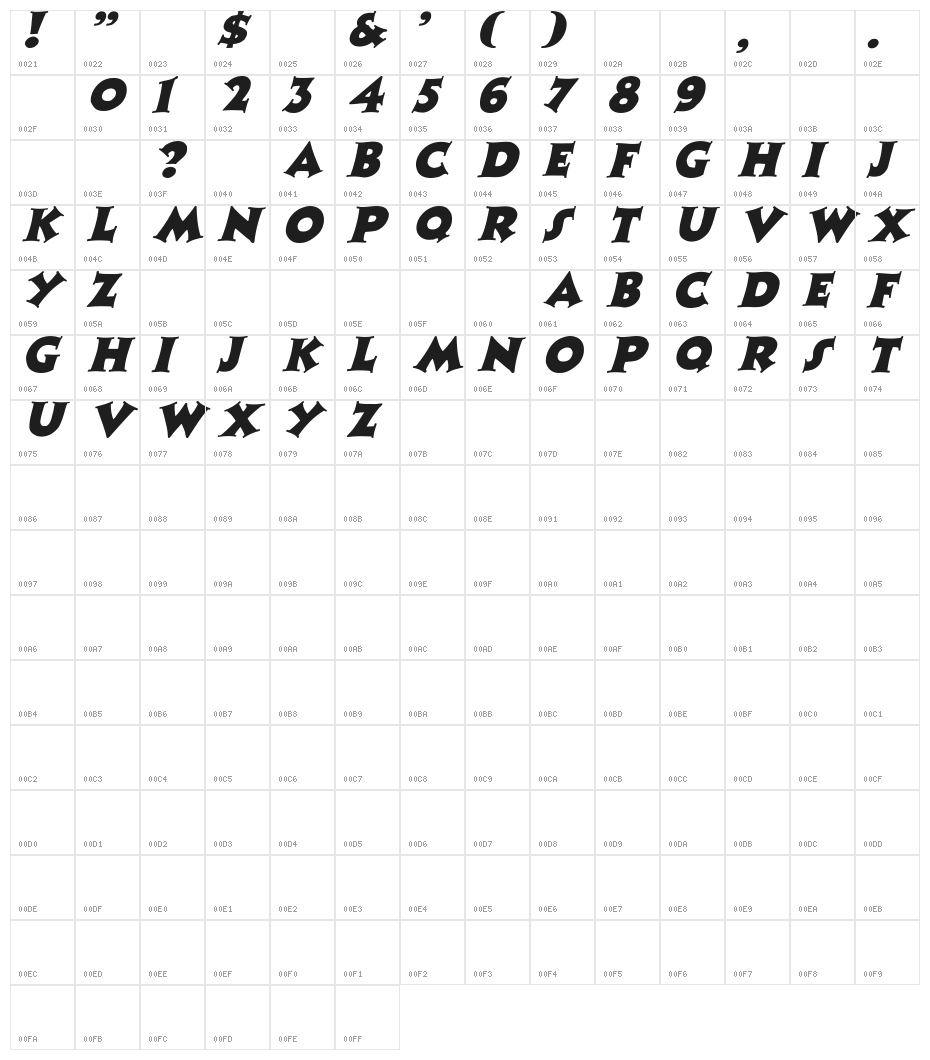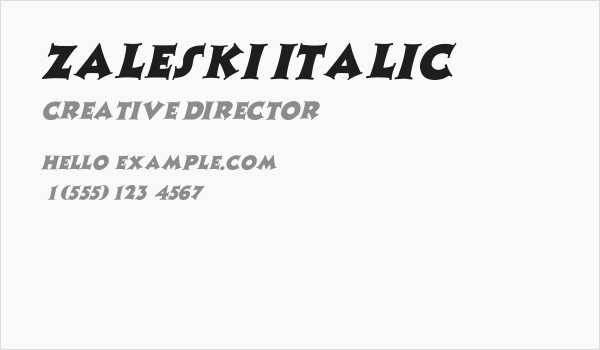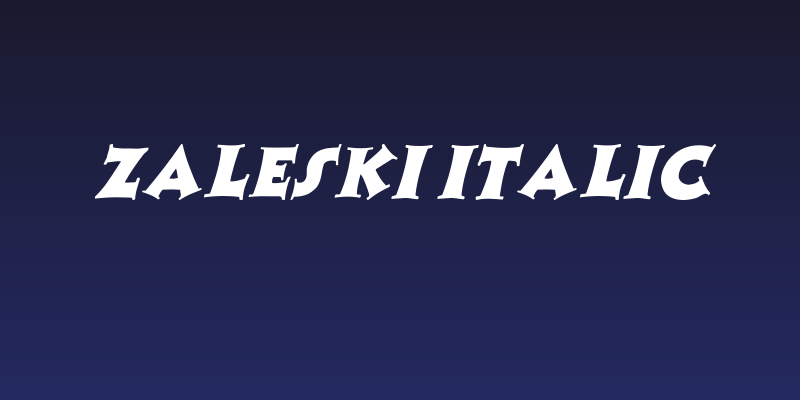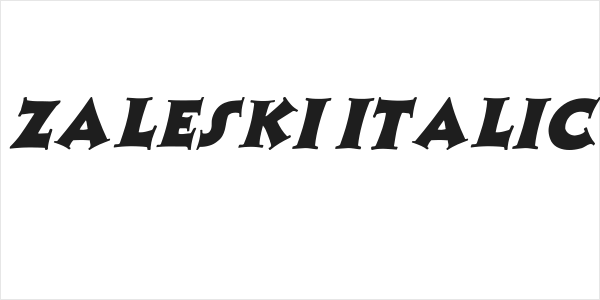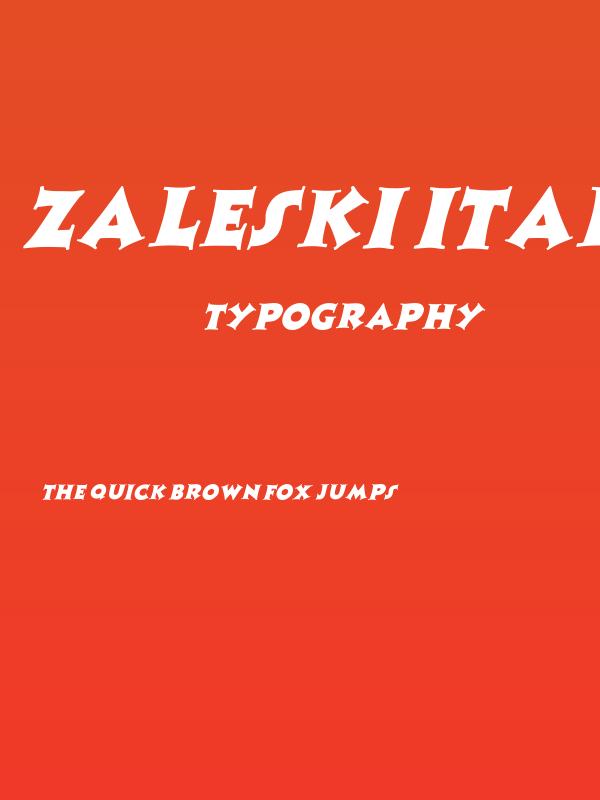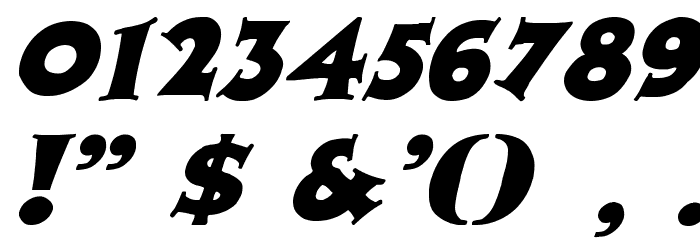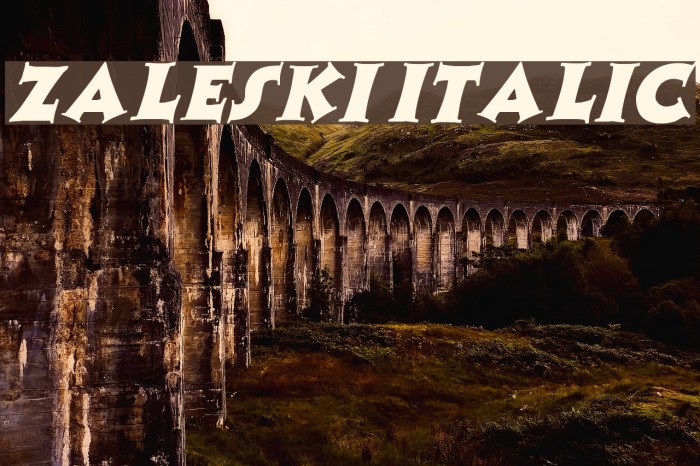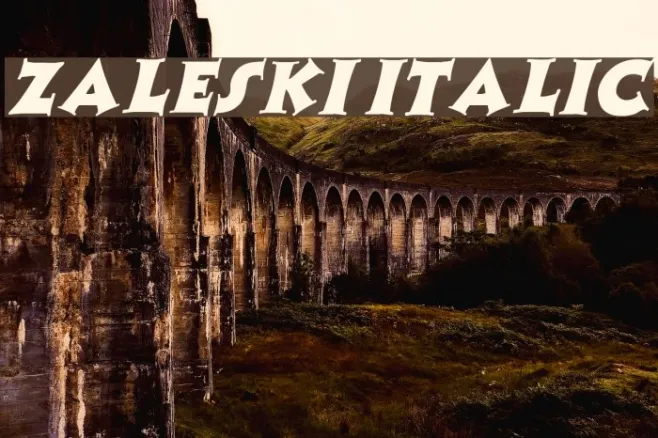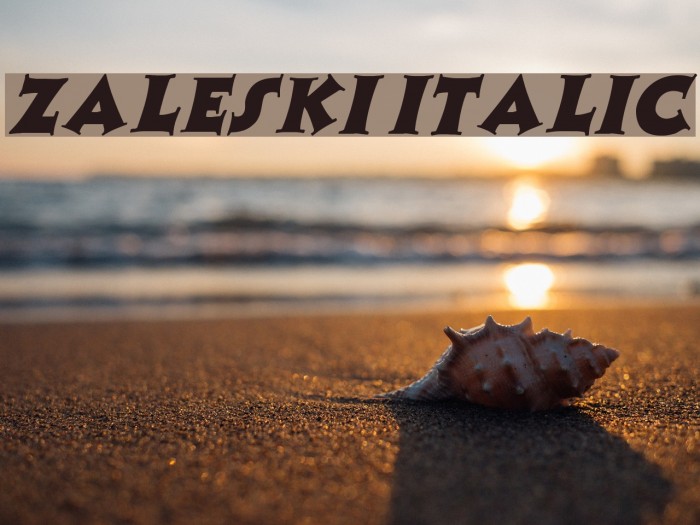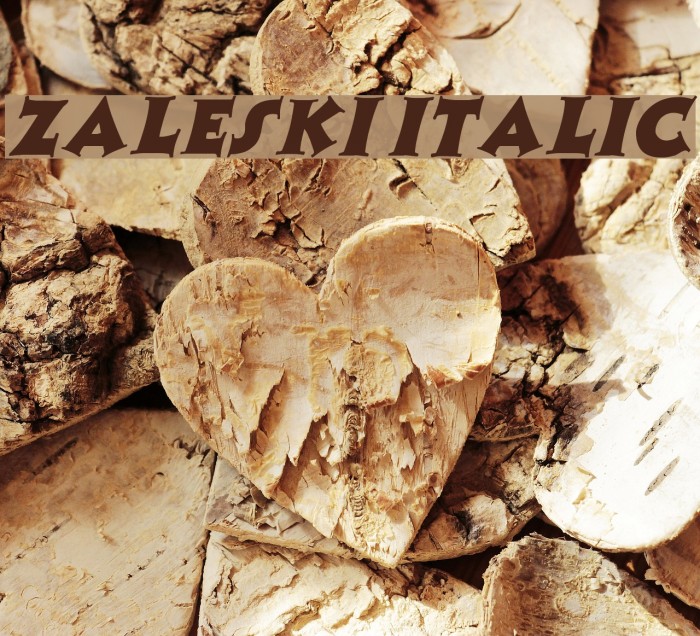
Zaleski Italic Font
Zaleski Italic Description
This font features a bold and dynamic italic style with sharp, angular serifs and a strong presence. The uppercase letters have a distinctive slant, giving them a sense of movement and energy. The lowercase letters maintain this dynamic quality, with unique shapes that enhance the font's bold character. Numbers are equally bold, with a consistent slant that matches the letters. The special characters are designed to complement the overall style, making this font suitable for attention-grabbing designs.
| Proposed Projects | Ideal for branding, headlines, posters, and any design requiring a bold, dynamic look. |